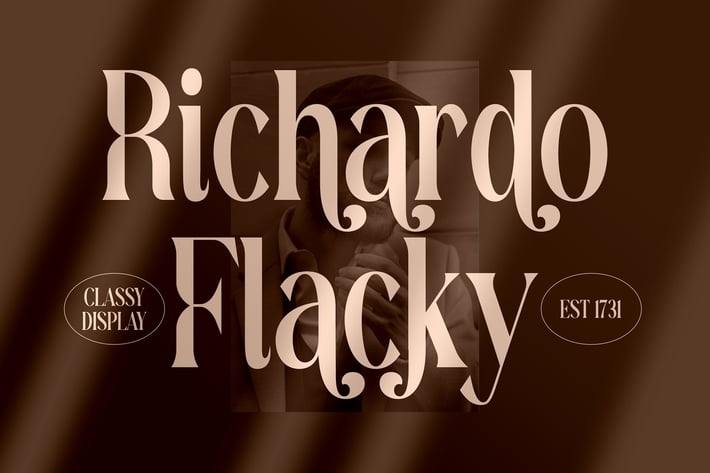
Richardo Flacky Modern Serif Font
Richardo Flacky is a modern and elegant serif font that blends timeless sophistication with a contemporary edge. Designed with sharp details and stylish alternates, it brings a sense of professionalism and luxury to any design project. Its versatility makes it suitable for both display and body text.
+ Stylish serif design with refined letterforms
+ Alternates and ligatures included
Elevate your typography with Richardo Flacky — where timeless elegance meets modern design.